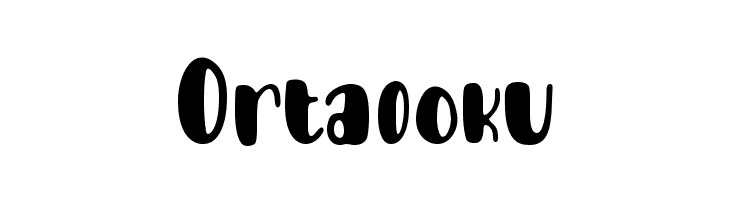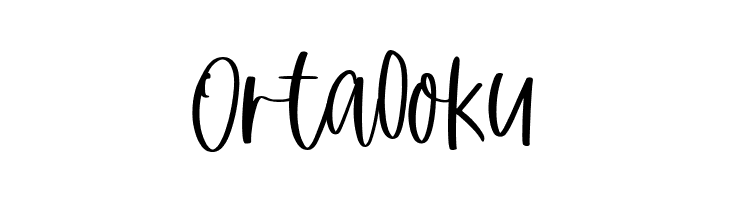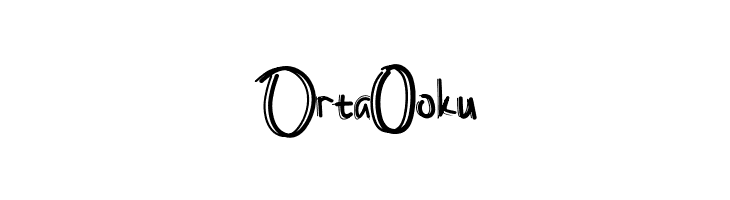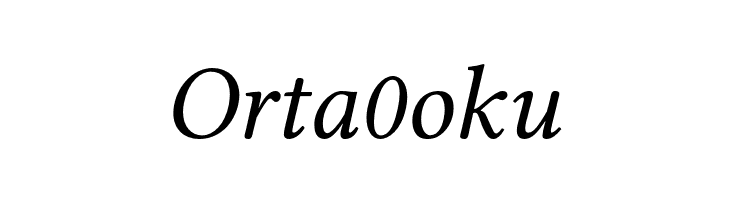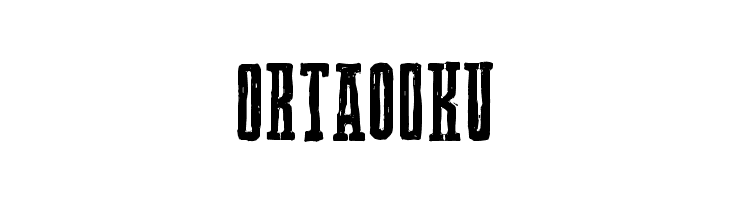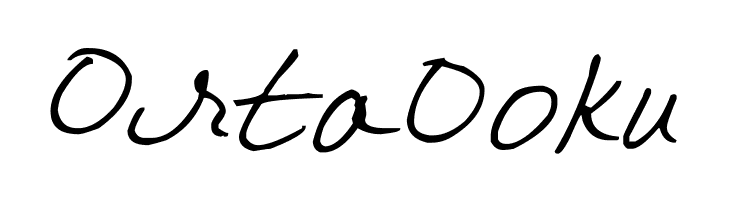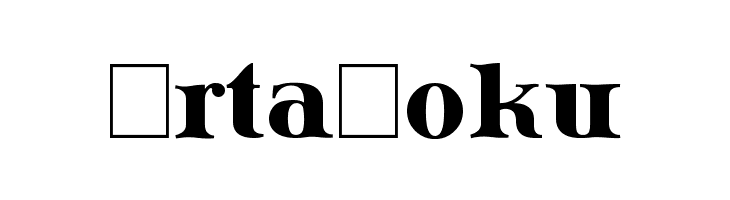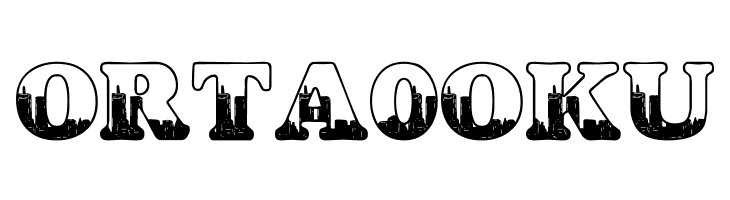
• Linux Libertine O Italic
• Lissain
A bold, high-contrast serif font with pronounced serifs and a classic style.
• Little bird
A casual, handwritten font with fluid, connected strokes and a playful bounce.
• Little Cupcakes
( Fonts by sronstudio )
A playful, bold, and rounded font with a hand-drawn feel.
• Little Hopper
A playful, curly font with bold, smooth strokes and a whimsical style.
• little pumpkin
A playful, handwritten font with dynamic strokes and a casual flair.
• Llama Mad
A bold, distressed font with a vintage, rugged style.
• Llama Mad
A bold, distressed font with a vintage, western-inspired style.
• LMS September 11 2001 8:47 AM
( London's Letters - www.londonsletters.com/ )
A bold, decorative font with cityscape silhouettes in each character.
• Loadtz
A playful, handwritten font with bold strokes and a whimsical style.